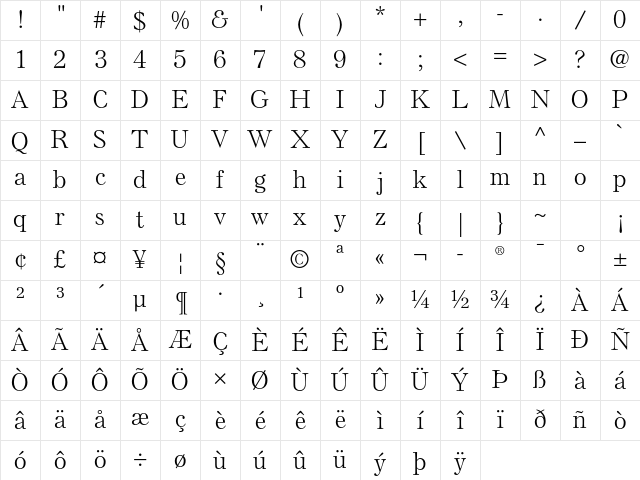
Else NPL Std Light
Designer: Robert Norton
Design Context for Else NPL Std
Else NPL Std is a composed and adaptable typeface that performs quietly and consistently across a wide range of design contexts. Its slender proportions lend an understated elegance to any composition.